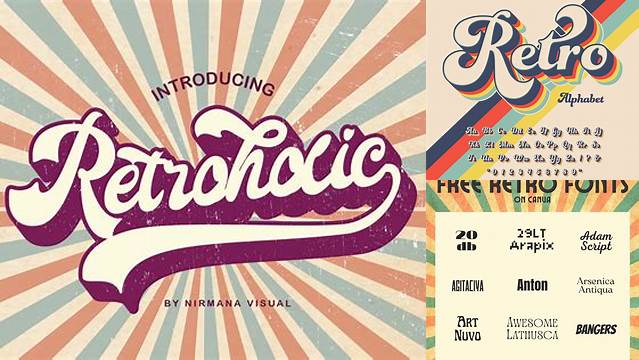
Free Retro Fonts 2026: A Blast From The Past
Hey guys! Looking to inject some serious vintage vibes into your next design project? You've come to the right place. In 2026, the demand for free retro fonts isn't just a trend; it's a full-blown resurgence, and for good reason! These fonts transport us back to simpler times, evoking nostalgia, charm, and a unique aesthetic that modern designs sometimes lack. Whether you're crafting a cool poster for a band, designing a retro-themed website, or even just spicing up your social media graphics, free retro fonts 2026 are your secret weapon. Let's dive into the awesome world of these timeless typography gems and discover how you can use them to make your designs pop!
The Enduring Appeal of Retro Typography
So, why are we still so obsessed with retro fonts, guys? It's like comfort food for the eyes, right? Free retro fonts 2026 tap into a powerful sense of nostalgia. Think about those old movie posters, vintage advertisements, or even the lettering on classic arcade games. There's an inherent warmth and character to these styles that simply isn't found in many contemporary fonts. They tell a story, immediately grounding your design in a specific era, whether it's the groovy 70s, the bold 80s, or the sleek art deco of the 1920s. This ability to instantly evoke a feeling and a time period is incredibly valuable for designers. When you use a free retro font, you're not just choosing a typeface; you're selecting an atmosphere. It’s about creating an emotional connection with your audience. In a world saturated with minimalist and often similar-looking digital designs, a well-chosen retro font can make your work stand out dramatically. It’s a way to be different, to be memorable, and to show a bit of personality and design savvy. Plus, let's be honest, they just look cool! The unique shapes, the exaggerated serifs, the playful scripts – they all contribute to a visual language that’s both familiar and excitingly different from what we see every day. This makes the search for free retro fonts 2026 a worthy endeavor for anyone looking to add that special something to their creative toolkit.
Exploring Different Eras of Retro Fonts
When we talk about free retro fonts 2026, it's not just one monolithic style, you know? The term 'retro' actually covers a vast spectrum of design periods, each with its own distinct personality. Let's take a quick tour through some of the most popular eras you'll find fonts inspired by. First up, we have the Art Deco era (think 1920s-1930s). These fonts are all about elegance, symmetry, and geometric shapes. They often feature strong lines, stylized forms, and a luxurious feel – perfect for branding that needs to feel sophisticated and timeless. Then, we jump to the Mid-Century Modern era (roughly 1950s-1960s). This period brought us cleaner lines, often with a touch of whimsy and optimism. You'll see rounded edges, playful curves, and a generally friendly and approachable vibe. Think diner signs and classic sci-fi movie titles. Moving into the 1970s, things got a lot groovier! This is where you'll find bold, rounded, and often psychedelic-inspired fonts. They’re expressive, energetic, and perfect for projects that need a fun, free-spirited feel. Finally, the 1980s offered a more geometric, sometimes pixelated, and often neon-infused aesthetic. Think early video games and bold, blocky lettering. Understanding these different eras helps you pinpoint exactly the kind of retro feel you're going for. Each era offers a unique flavor, and knowing the origin story behind the free retro fonts 2026 you choose adds another layer of meaning and intention to your design. So, when you're browsing, try to identify which era's vibe resonates most with your project's goals. It's like picking the perfect soundtrack for your visual story!
Art Deco Inspired Fonts: Elegance and Geometry
Alright, let's get fancy with free retro fonts 2026 inspired by the Art Deco movement. Man, this era was all about sophistication, glamour, and a dash of futurism, even back in the roaring twenties and thirties. Think the Chrysler Building, flapper dresses, and the golden age of Hollywood. The typography from this period reflects that – it's sleek, geometric, and incredibly stylish. You'll often see fonts with sharp, clean lines, symmetrical letterforms, and sometimes even a bit of flair with unique ligatures or decorative elements. These aren't your everyday fonts; they carry a sense of luxury and importance. When you're looking for Art Deco-inspired free fonts, keep an eye out for those with strong vertical and horizontal emphasis, often paired with elegant curves. They work wonders for branding projects that want to convey prestige, high-end products, or anything with a classic, timeless appeal. Imagine using one of these fonts for a wedding invitation, a high-end restaurant logo, or even a book cover for a historical novel. The key is that they communicate a sense of quality and deliberate design. They often have a tall, condensed feel, giving a sense of grandeur. While finding truly free high-quality Art Deco fonts can sometimes be a hunt, there are gems out there. Search terms like 'vintage geometric font,' '20s style font,' or 'streamline moderne font' can help you uncover these treasures. Remember, the goal is to capture that blend of modernism and opulence that defined the era. It’s about making a statement that is both bold and refined, a balancing act that these free retro fonts 2026 achieve beautifully. They're not just letters; they're architectural statements in themselves, bringing a touch of old-world charm and enduring class to any design canvas you're working with.
Mid-Century Modern Fonts: Playful and Clean
Moving on to the era of atomic age optimism and sleek design – the Mid-Century Modern period! Guys, these fonts are just so darn charming and approachable. Think 1950s and 60s diners, Googie architecture, and early television. The vibe here is generally friendly, clean, and often a little bit quirky. You’ll find fonts with rounded corners, geometric shapes that feel organic rather than rigid, and a general sense of playful sophistication. They’re less about sharp luxury and more about a comfortable, forward-thinking, yet still retro feel. When you’re hunting for free retro fonts 2026 in this style, look for sans-serifs with a bit of personality. Some might have slightly eccentric letterforms, while others are just beautifully simple and balanced. These fonts are super versatile. They work brilliantly for branding that wants to feel accessible and modern, yet with a nod to the past. Imagine using them for a children's book, a craft brewery logo, a cafe's signage, or even a website for a quirky startup. They bring an instant sense of warmth and familiarity without feeling dated. The clean lines ensure readability, while the subtle retro touches give them that unique character. It’s that perfect sweet spot between classic and contemporary. Sites offering free fonts often have categories like 'geometric sans-serif,' '50s style font,' or 'vintage friendly font' that can lead you to these Mid-Century gems. Don't underestimate the power of these free retro fonts 2026 to make your designs feel welcoming and stylishly nostalgic. They’re a fantastic way to add personality and a touch of mid-century cool without breaking the bank or compromising on usability.
70s Groovy Fonts: Bold and Expressive
Let's get groovy, baby! The 1970s were all about breaking boundaries, expressing individuality, and, of course, a whole lot of funk. The free retro fonts 2026 inspired by this era totally capture that spirit. We're talking bold, rounded, often bulbous letterforms that just ooze personality. Think psychedelic posters, disco album covers, and vibrant fashion. These fonts are far from subtle; they are designed to make a statement and grab attention. You'll often see very thick strokes, exaggerated curves, and sometimes even a bubbly or wavy effect. They are incredibly expressive and can add a huge dose of energy to any design. When you're searching for these, look for terms like 'groovy font,' '70s psychedelic font,' 'bubble font,' or 'funky font.' They are perfect for projects that need to feel fun, loud, and unapologetically retro. Imagine using them for music event flyers, t-shirt designs, branding for a retro-themed bar, or anything that needs to scream 'party time!' While these fonts can be very distinctive, they might not be suitable for large blocks of text due to their decorative nature. However, for headlines, logos, and key display text, they are absolutely killer. They instantly transport the viewer back to a time of disco balls and freedom. Finding free retro fonts 2026 in this style requires a good eye, as they can be quite specific, but the payoff in terms of visual impact is immense. They are a fantastic way to inject pure, unadulterated fun and retro flair into your work, making it instantly memorable and vibrant. It’s all about that bold, expressive character that defined the decade.
####### 80s Retro Fonts: Geometric and Neon
Alright, who's ready to go back to the future? The 1980s were a wild ride of bold colors, geometric shapes, and that iconic neon glow. The free retro fonts 2026 that capture this era are all about sharp angles, blocky structures, and sometimes even a pixelated, digital feel. Think early video games, synth-pop album covers, and those classic arcade machines. These fonts often have a strong, futuristic (for the time!) vibe, characterized by geometric precision and a distinct lack of fussiness. You'll see a lot of straight lines, hard corners, and sometimes even outlines or fills that mimic the look of neon lights. They are perfect for projects that want to evoke a sense of retro-futurism, gaming, or a general 80s pop culture aesthetic. When you're searching for them, keywords like '80s font,' 'geometric retro font,' 'pixel font,' or 'neon font' will be your best friends. These fonts are fantastic for headlines, logos, or any display text where you want to make a bold, nostalgic statement. They bring a sense of fun, energy, and that distinct 80s edge. Imagine using them for a retro gaming event, a synthwave music project, or even branding for a tech company that wants to play on retro themes. While some might lean heavily into the pixelated look, others offer a cleaner, more geometric interpretation of the era's style. Finding free retro fonts 2026 that nail the 80s vibe can really make your design pop with that unmistakable, energetic retro charm. They're a great way to add a touch of nostalgic cool that still feels relevant and exciting today. It’s all about that sharp, angular, and often luminous aesthetic.
Where to Find Amazing Free Retro Fonts in 2026
Okay, guys, the big question: where can you actually score these awesome free retro fonts 2026? The internet is a treasure trove, but it can also be a bit of a jungle. Luckily, there are some reliable spots that consistently offer high-quality, free fonts, including tons of retro-inspired ones. Your first stop should definitely be Google Fonts. While it might not have the most obscure retro styles, it has a surprisingly large collection of fonts with vintage characteristics, many of which are totally free and easily accessible for commercial use. Another fantastic resource is Font Squirrel. They curate a great selection of high-quality free fonts, and their tagging system makes it easy to filter by style (though you might have to dig a bit for specific retro sub-genres). DaFont is a classic go-to for many designers. It has an enormous library, but be very careful about the licensing. Many fonts on DaFont are free for personal use only, so always double-check before using them commercially. 1001 Free Fonts is another massive repository, similar to DaFont in terms of variety and the need to check licenses. For more curated selections, check out sites like Behance or Dribbble. Often, designers will share their retro font creations for free, especially if they're promoting a larger project. Just search for 'free retro font' or specific era keywords. Finally, don't forget about independent font foundries that occasionally release freebies. Keep an eye on their newsletters or social media! The key is persistence and knowing what search terms to use. Remember to always check the license agreement for any free retro fonts 2026 you download. 'Free' doesn't always mean 'free for anything.' Understanding the usage rights is crucial for your projects. Happy hunting!
Navigating Font Licenses: Crucial for Freebies
Alright, let's talk about something super important, guys, something that can save you a lot of headaches down the line: font licenses. When you're diving into the world of free retro fonts 2026, it's absolutely critical to understand what 'free' actually means. Most free fonts fall into one of two categories: free for personal use, or free for commercial use. Using a font for your personal blog or a fun project among friends is usually fine with a personal use license. However, if you plan to use that font on a website that sells products, a business logo, marketing materials, or anything that makes money, you need a commercial use license. Ignoring this can lead to legal trouble, and nobody wants that, right? So, how do you check? Reputable font sites like Google Fonts usually have clear licensing information right on the download page – often they use the Open Font License (OFL), which is generally very permissive for both personal and commercial use. Font Squirrel also does a great job vetting fonts for commercial use. For sites like DaFont or 1001 Free Fonts, you'll often see a clear indication next to the download button or on a separate license page. It might say '100% Free,' 'Free for personal use,' or list specific restrictions. Always, always click the link or read the small print. If you're unsure, it's safer to assume it's not licensed for commercial use or to contact the designer directly. Don't let a cool free retro font 2026 turn into a legal nightmare. Being diligent about licenses shows professionalism and respect for the designer's work. It's a small step that makes a huge difference.
Google Fonts: A Reliable Source for Vintage Styles
############## Designing with a Retro Color Palette
Alright, let's talk color, guys, because pairing your free retro fonts 2026 with the right color palette is like adding the perfect seasoning to a dish – it brings everything together! Each retro era has its own distinct color story, and leaning into these palettes can significantly enhance the vintage feel of your design. For Art Deco, think rich jewel tones like emerald green, sapphire blue, deep burgundy, often accented with gold, silver, or black for that luxurious contrast. Mid-Century Modern vibes call for palettes that are often inspired by nature but with a bit of a stylized twist – think earthy browns, olive greens, mustard yellows, teals, and muted oranges, often balanced with clean whites or grays. The 1970s were all about bold, sometimes earthy, sometimes psychedelic combinations. You might see avocado greens, harvest golds, burnt oranges, browns, paired with vibrant pops of magenta or turquoise. Don't be afraid of slightly desaturated or muted versions of these colors, as they often feel more authentically vintage. For the 1980s, it's all about high contrast: neon pinks, electric blues, vibrant purples, often set against black or deep space blues, or even playing with pastels like mint green and soft pink. Using these era-specific colors alongside your chosen free retro fonts 2026 reinforces the historical context and makes your design feel more cohesive and intentional. Even if you're not strictly adhering to an era, using colors that feel slightly muted, desaturated, or have a warm undertone can instantly give a design a more retro feel compared to harsh, overly bright, modern digital colors. Experimenting with these palettes is key to making your retro typography truly sing.